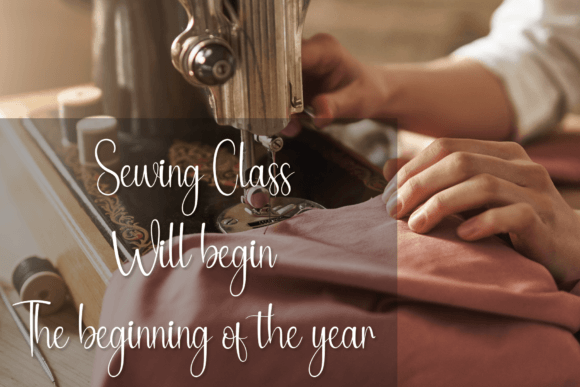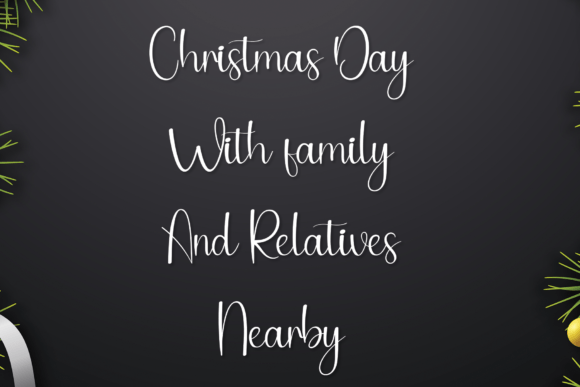
Introduction to Fourteen Font
Fourteen is a cursive and elegant handwritten font.
👤 Author Misterletter.co
Its latest style letters are perfect for wall displays, wedding invitations, social media post logos, advertisements, product packaging, product designs, labels, photography, watermarks, invitations, stationery, and any project that requires a taste for handwriting .
Key Features of Fourteen Font
Why Choose Fourteen Font?
Fourteen Font offers exceptional quality and versatility, making it a valuable addition to your design toolkit. Whether you’re creating for personal projects or commercial use, Fourteen Font delivers professional results.